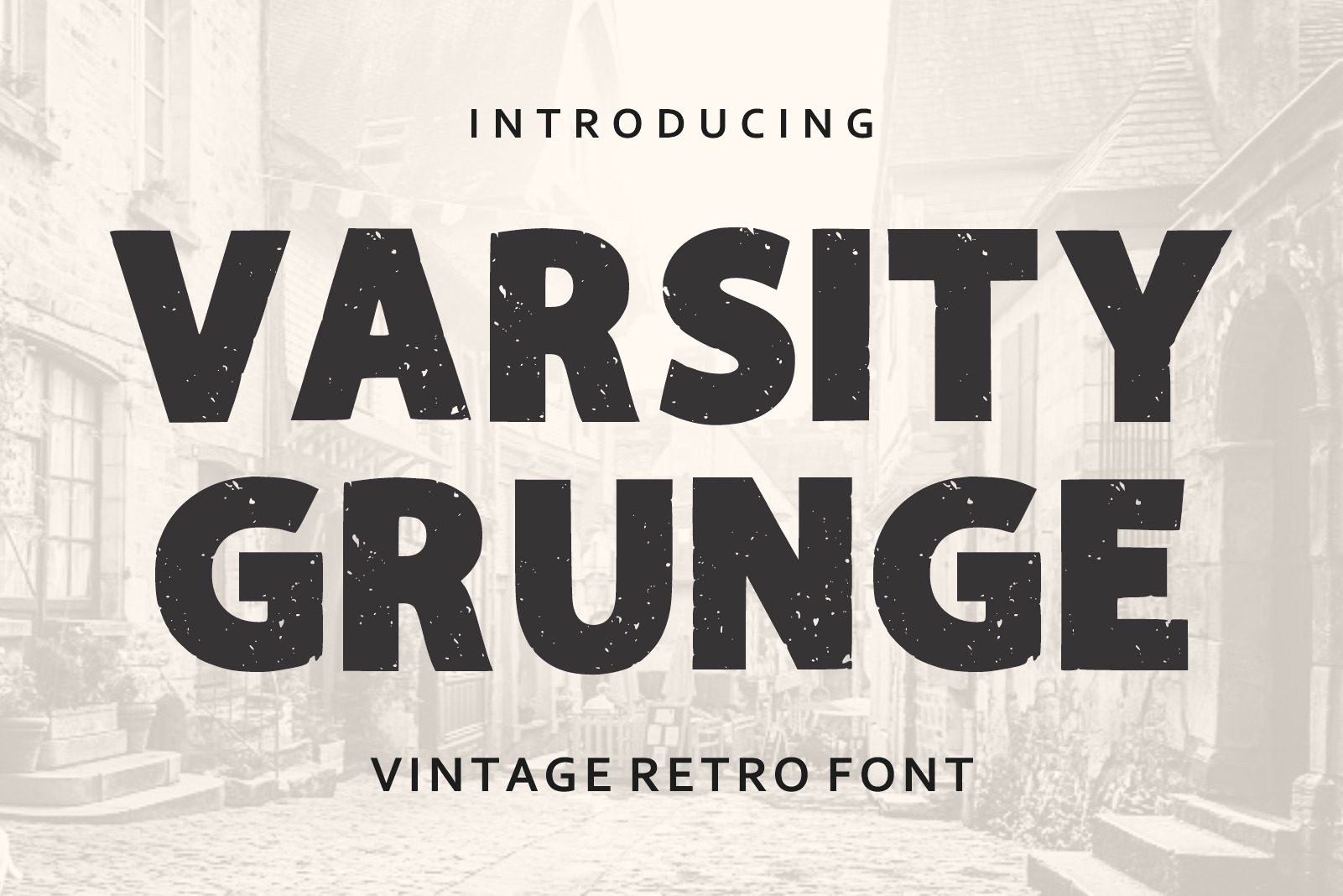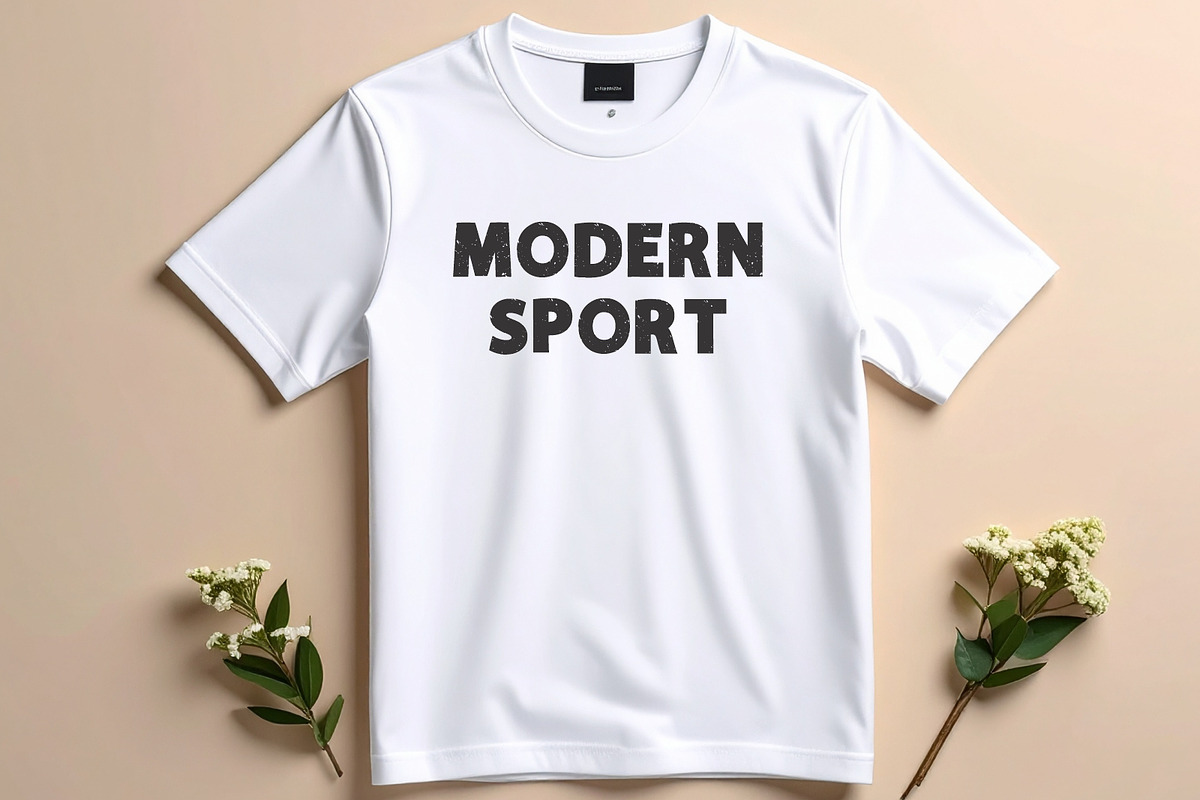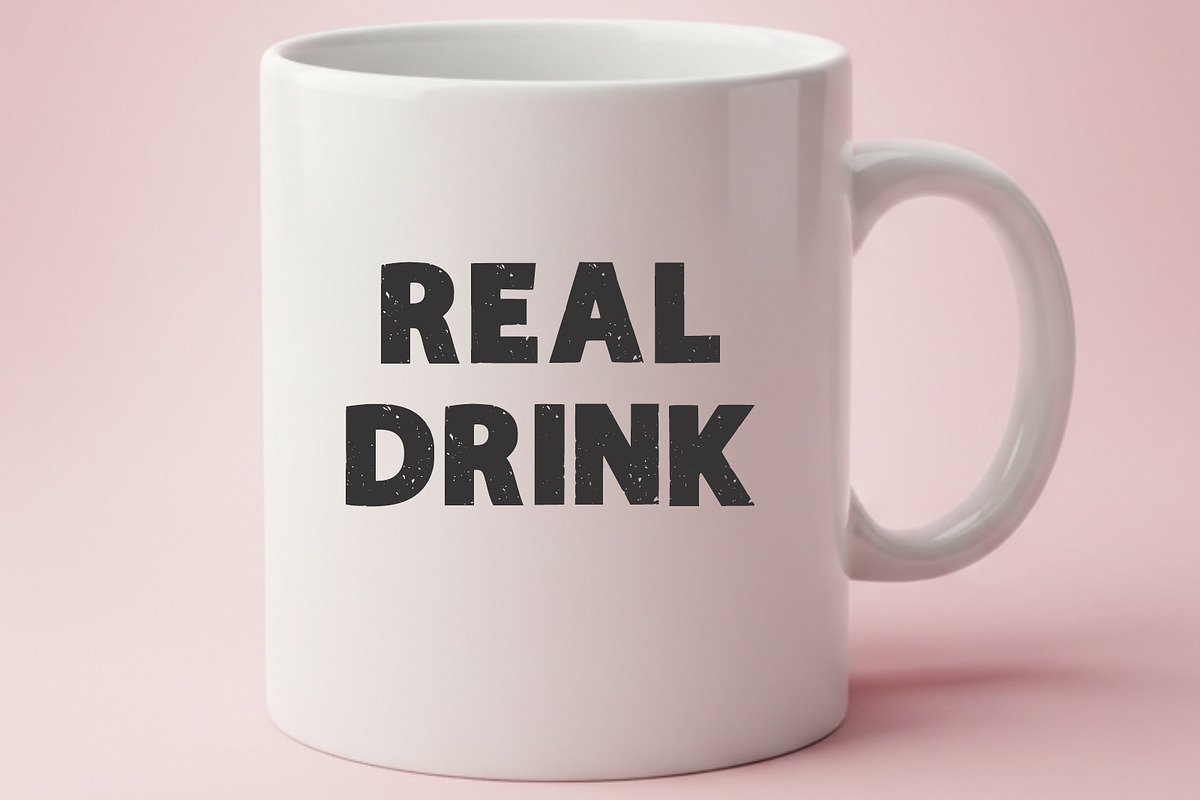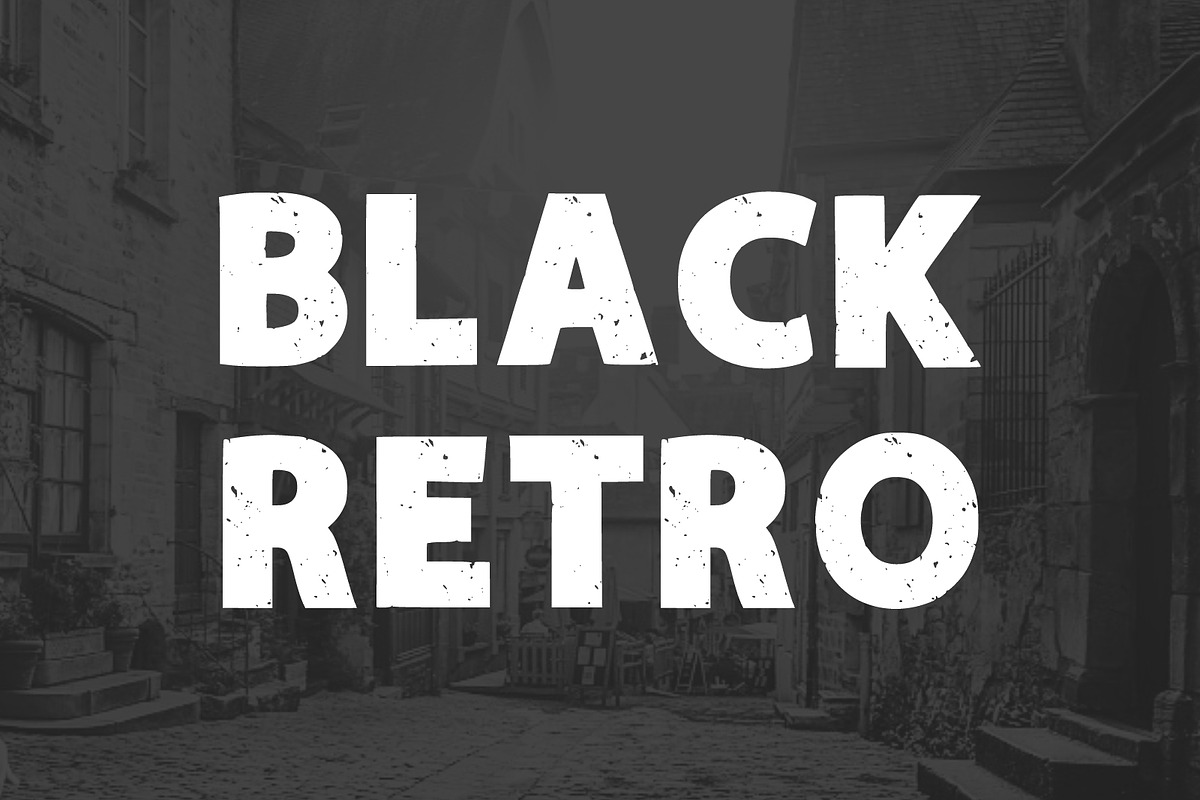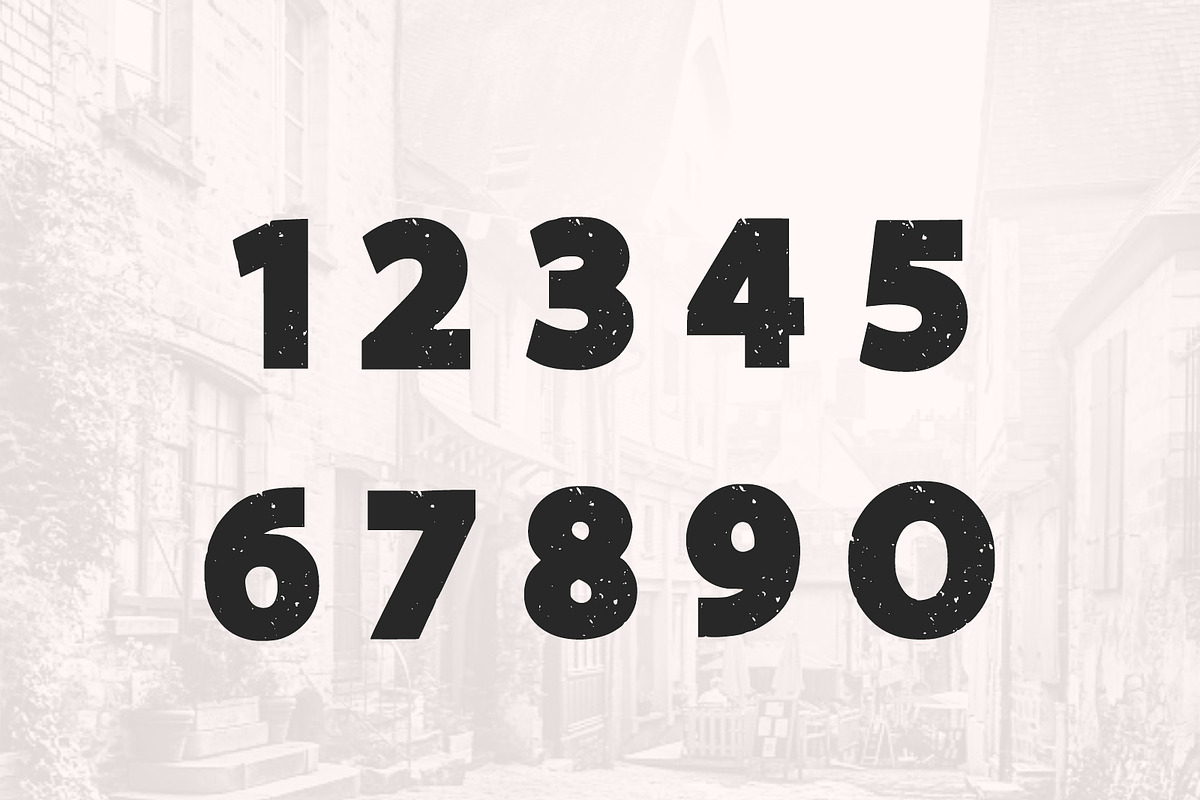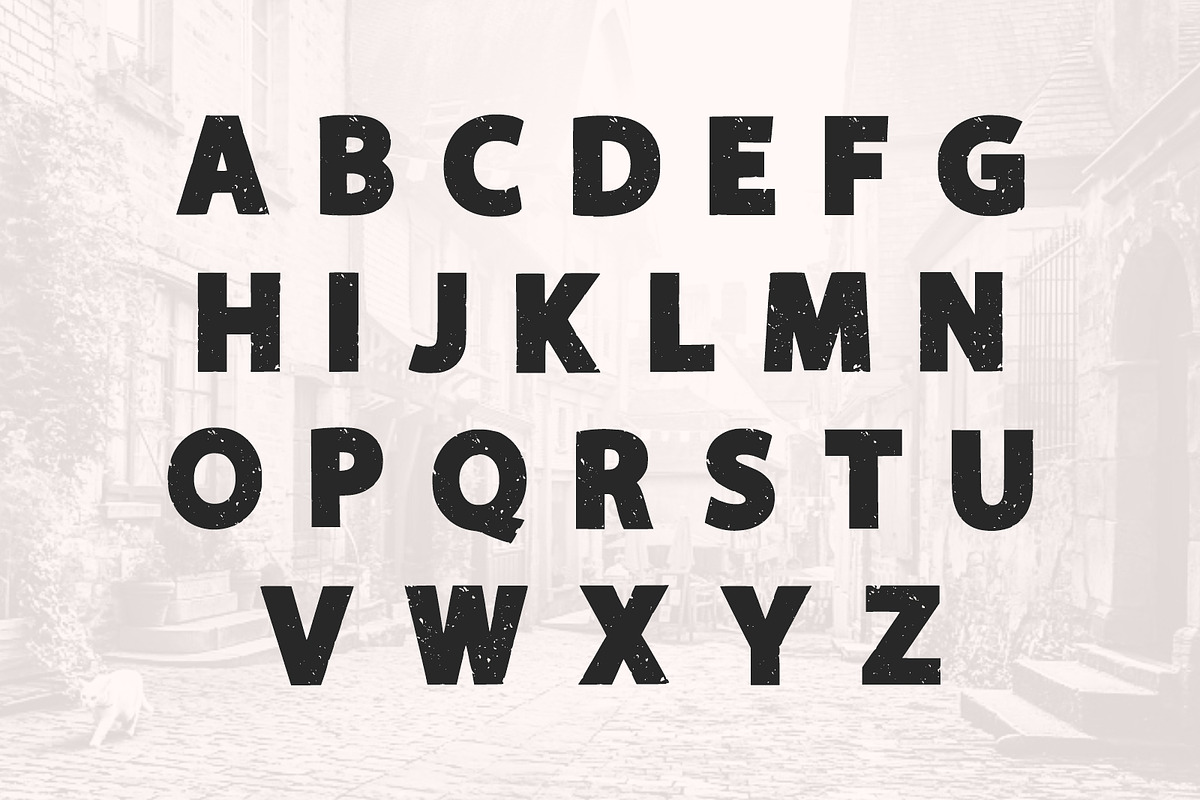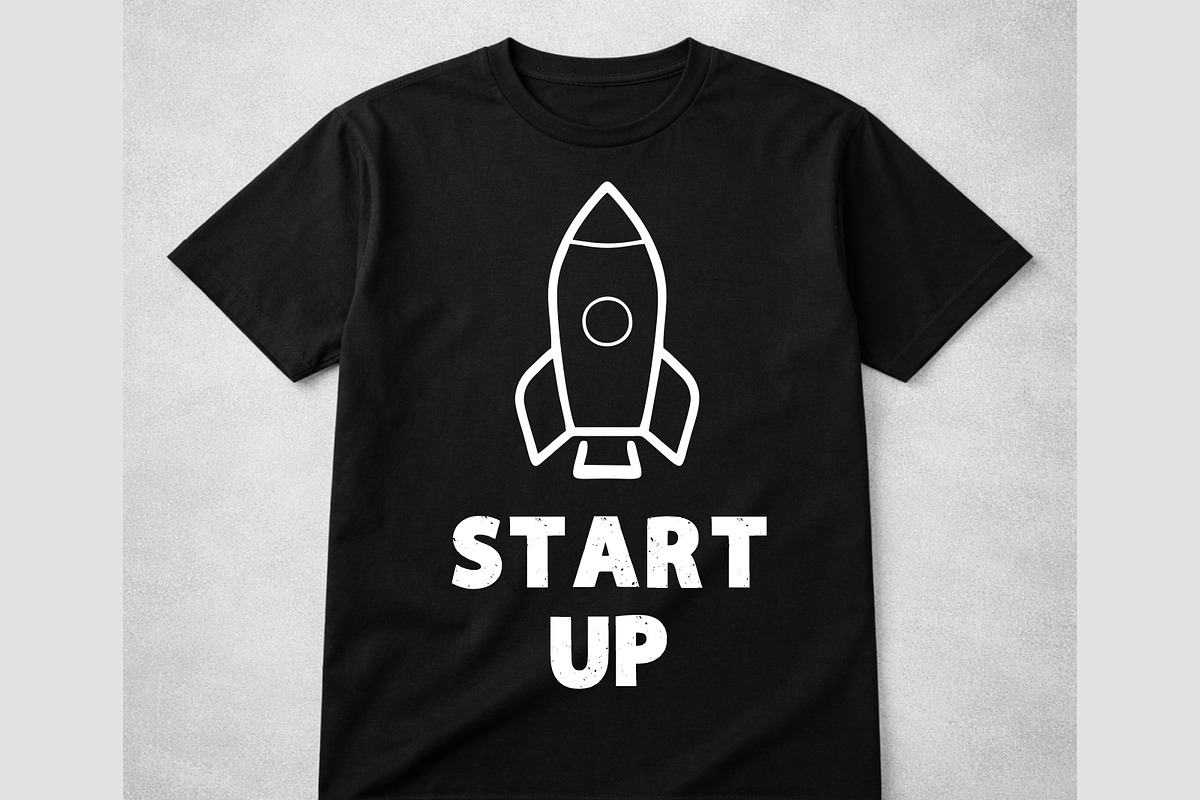
Varsity Grunge Vintage Retro Font
Varsity Grunge is a bold vintage retro font inspired by classic varsity lettering, old school sports typography, and distressed urban aesthetics. Featuring strong sans serif characters with subtle grunge textures, this font delivers a rugged yet clean appearance perfect for logos, posters, apparel, branding, merchandise, album covers, social media graphics, and retro-inspired projects. Its timeless collegiate style combined with vintage distress effects creates a powerful and authentic design statement.